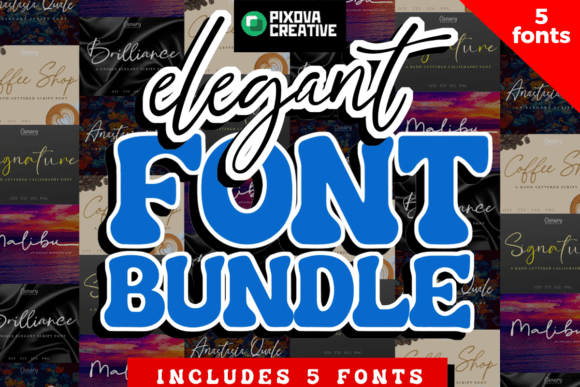
Elegant Bundle Font: Elevate Your Designs with 5 Unique Handcrafted Fonts
Are you tired of using the same old fonts in your creative projects? Do you want to add a touch of sophistication and elegance to your designs? Look no further! Introducing the Elegant font BUNDLE, a collection of 5 unique, handcrafted fonts that will take your designs to the next level.
What to Expect from the Elegant Bundle Font
The Elegant font BUNDLE is a carefully curated collection of 5 elegant fonts, each designed to bring a touch of luxury and refinement to your projects. These fonts are perfect for designers, crafters, and anyone looking to add a professional touch to their work.
• 5 Unique Fonts: Each font in the bundle is carefully handcrafted to ensure that it is unique and of high quality.
• Elegant and Sophisticated: These fonts are designed to add a touch of elegance and sophistication to your designs.
• Handcrafted with Love: Each font in the bundle is carefully handcrafted with love and attention to detail, ensuring that it is of high quality.
• Unique and Exclusive: The fonts in the Elegant font BUNDLE are unique and exclusive, ensuring that your designs stand out from the crowd.
The Elegant font BUNDLE is perfect for a wide range of designers and crafters, including:
• Graphic Designers: Graphic designers can use the Elegant font BUNDLE to add a touch of sophistication to their designs.
• Crafters: Crafters can use the fonts to create beautiful and elegant crafts, such as cards, invitations, and scrapbooking pages.
• Small Business Owners: Small business owners can use the fonts to create professional-looking marketing materials, such as brochures, flyers, and social media graphics.
Font Name Elegant Bundle Font
Author Pixova Creative